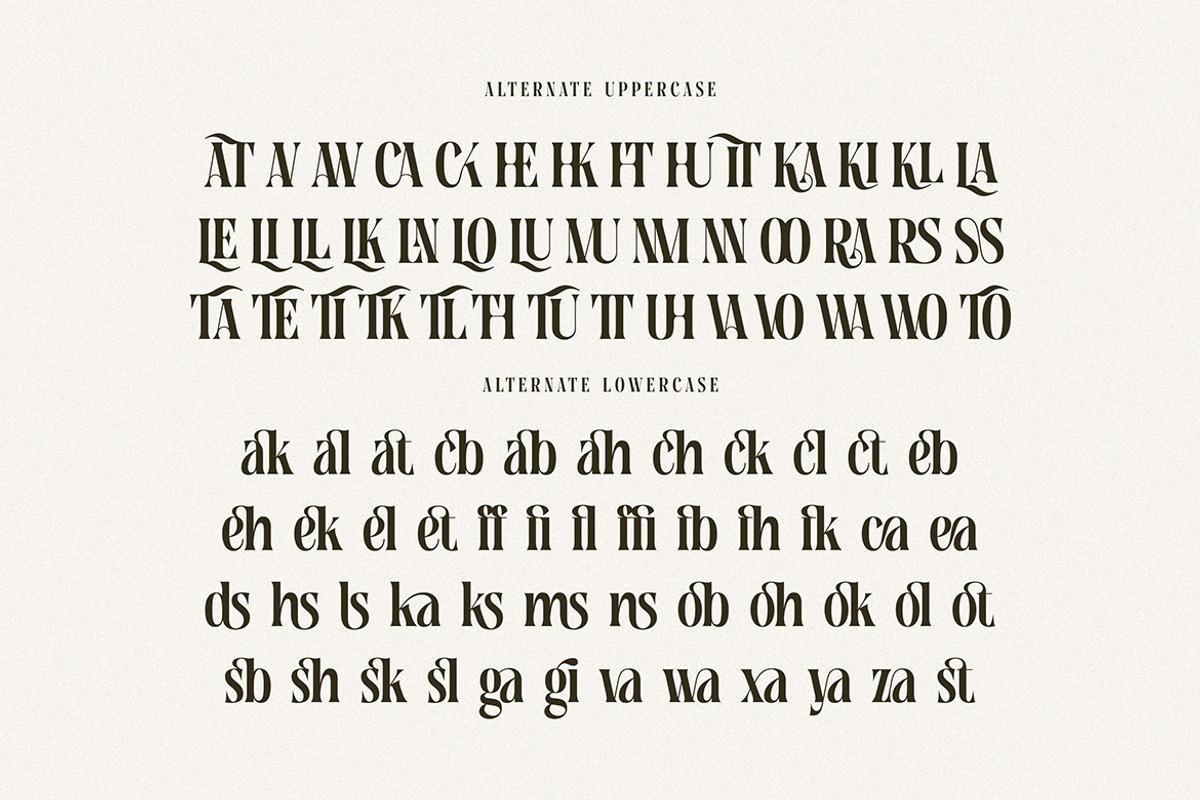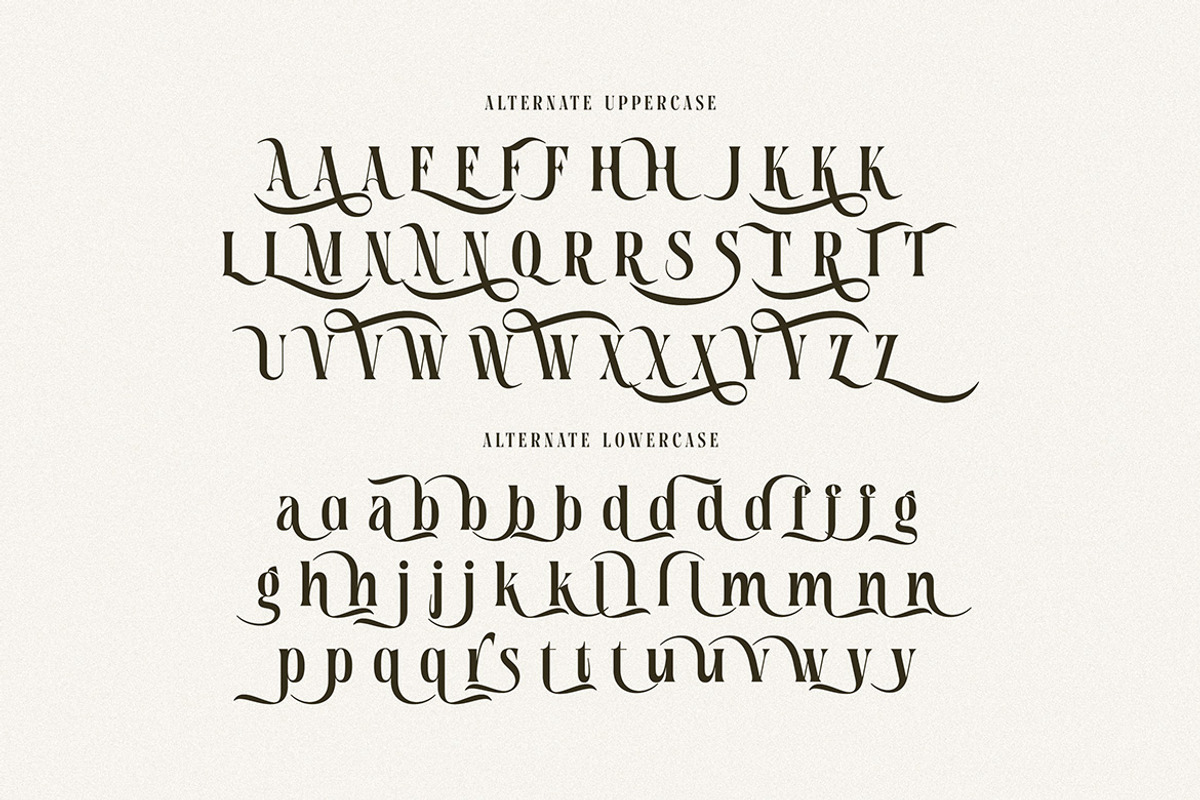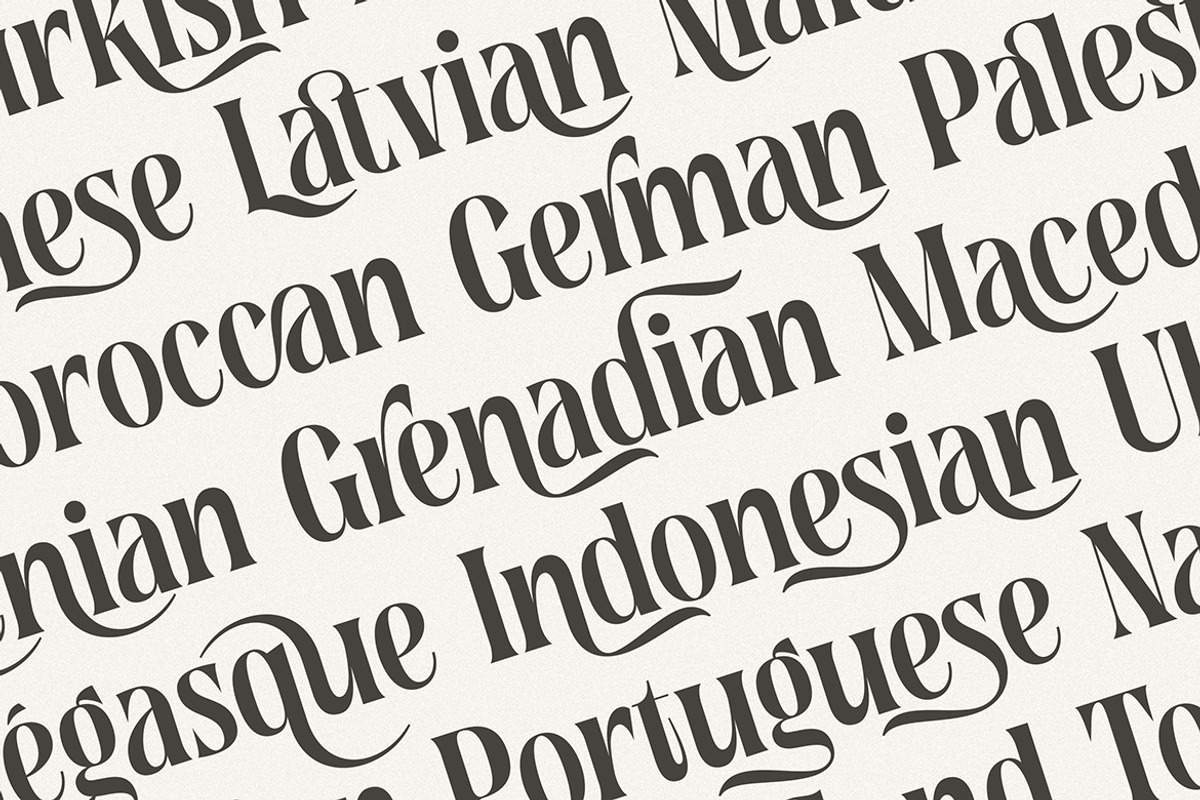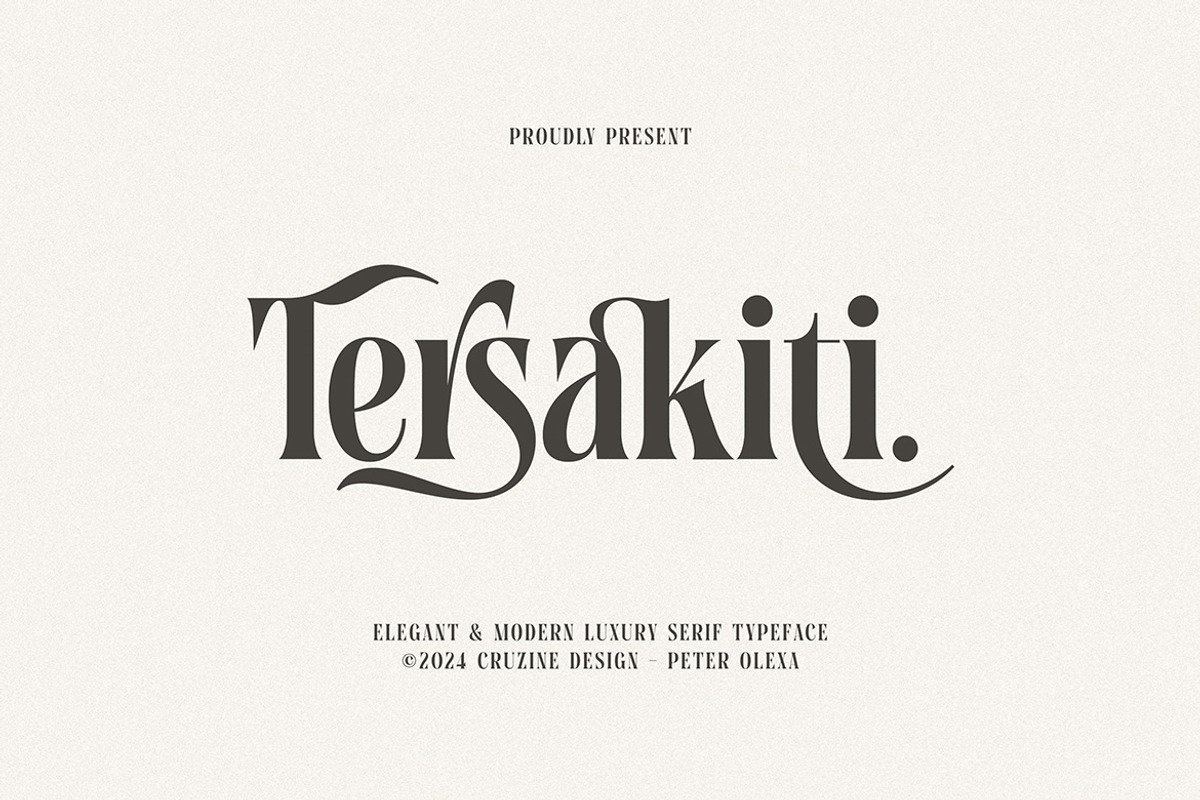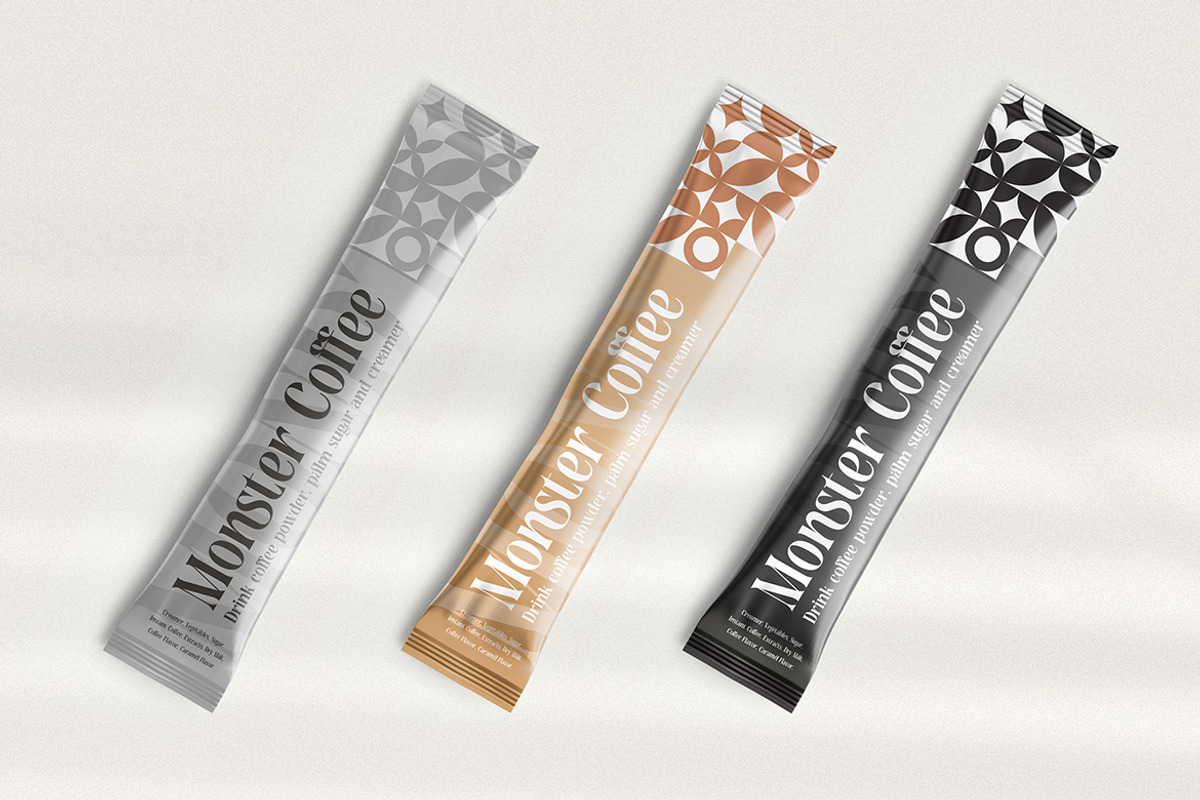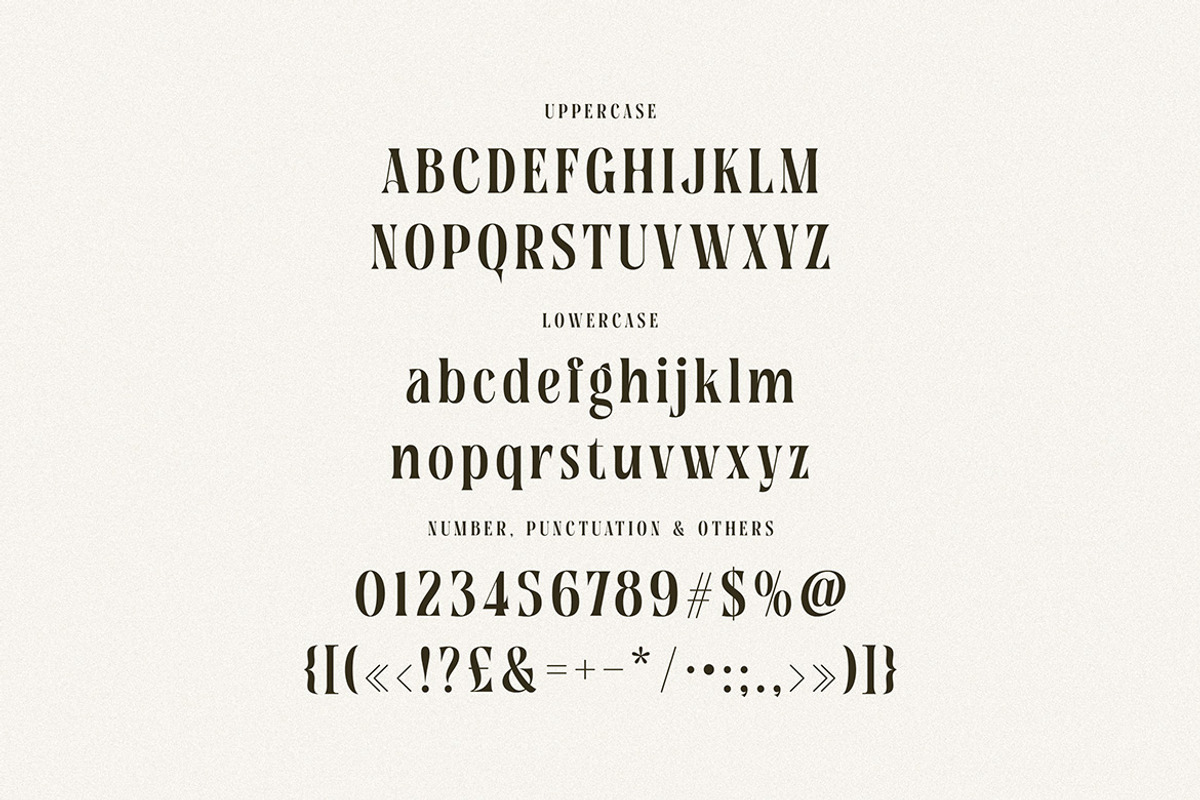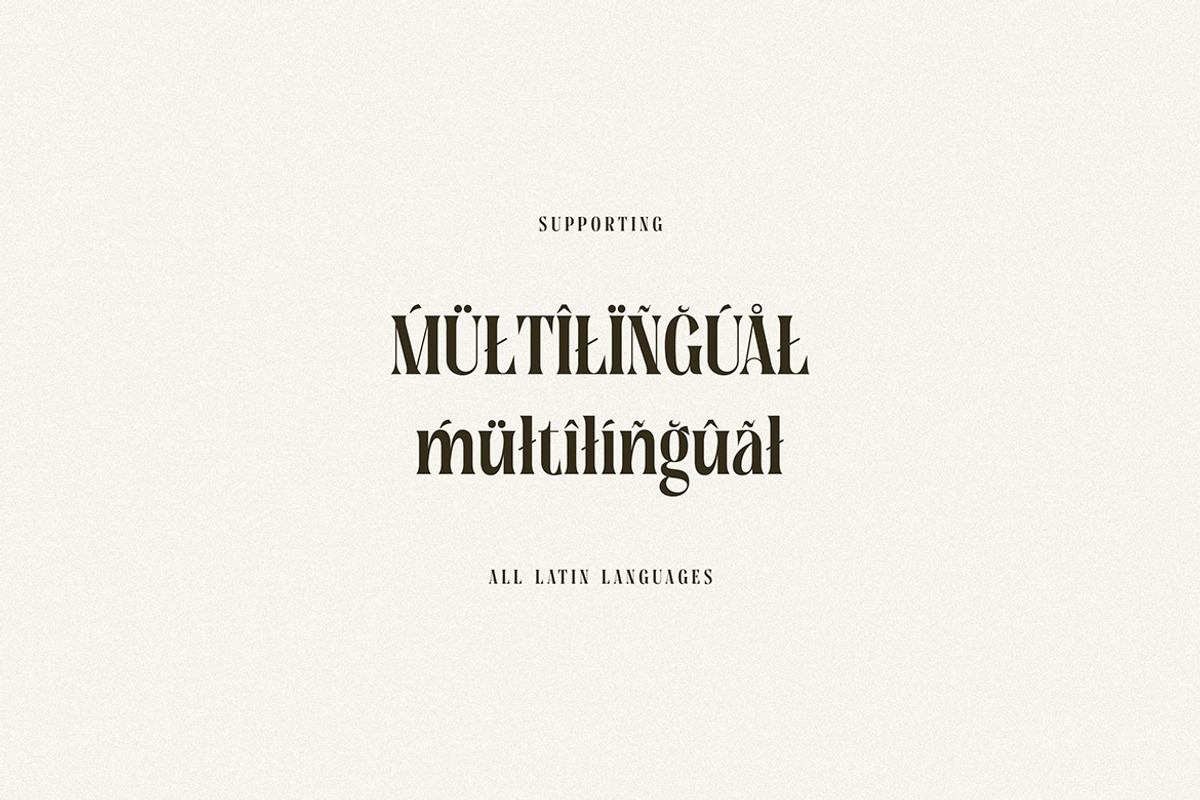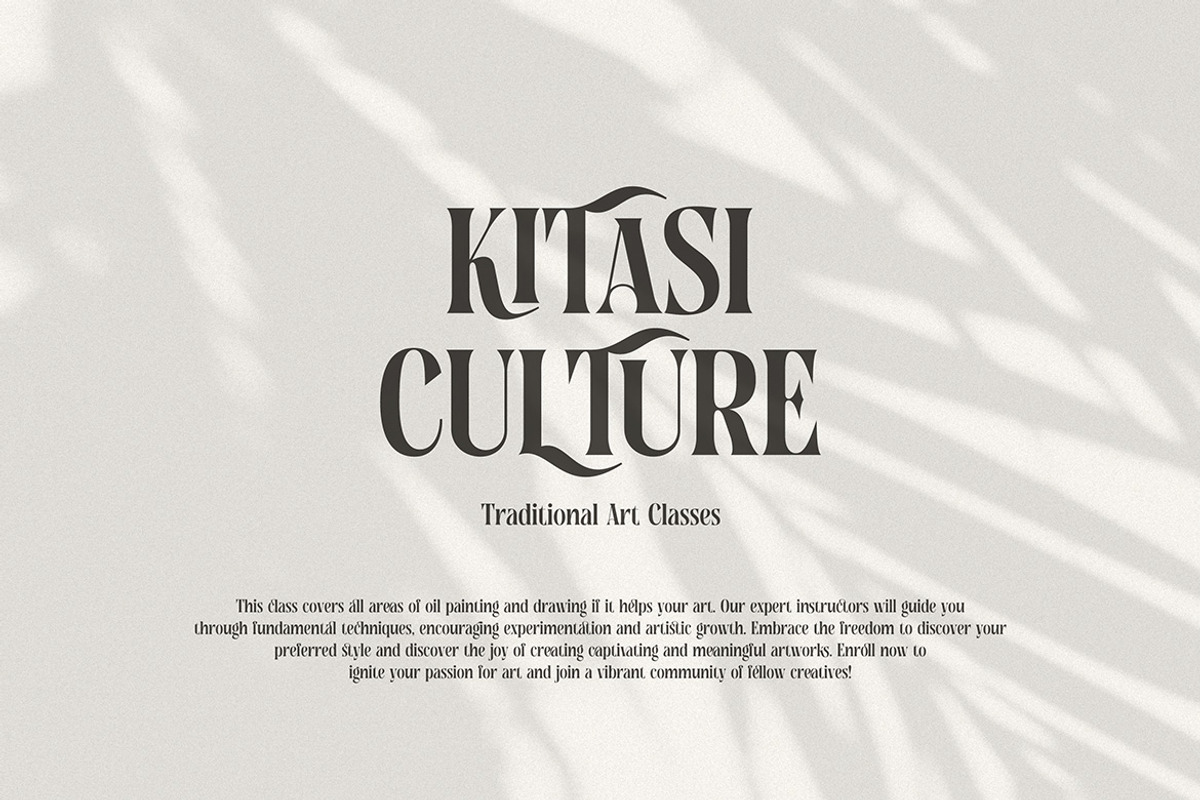
Tersakiti Elegant Modern Serif
Trendy, elegant, luxury, creative, condnesed & modern style semi-serif font for your new fancy projects. Stylish, romantic and classic style on Tersakiti font will be great for any modern or classy branding project. Lot of alternates and ligatures will help you to create unique and original logo design or website header! Enjoy :)
- Alternate characters & lot of ligatures
- Great for modern branding projects!